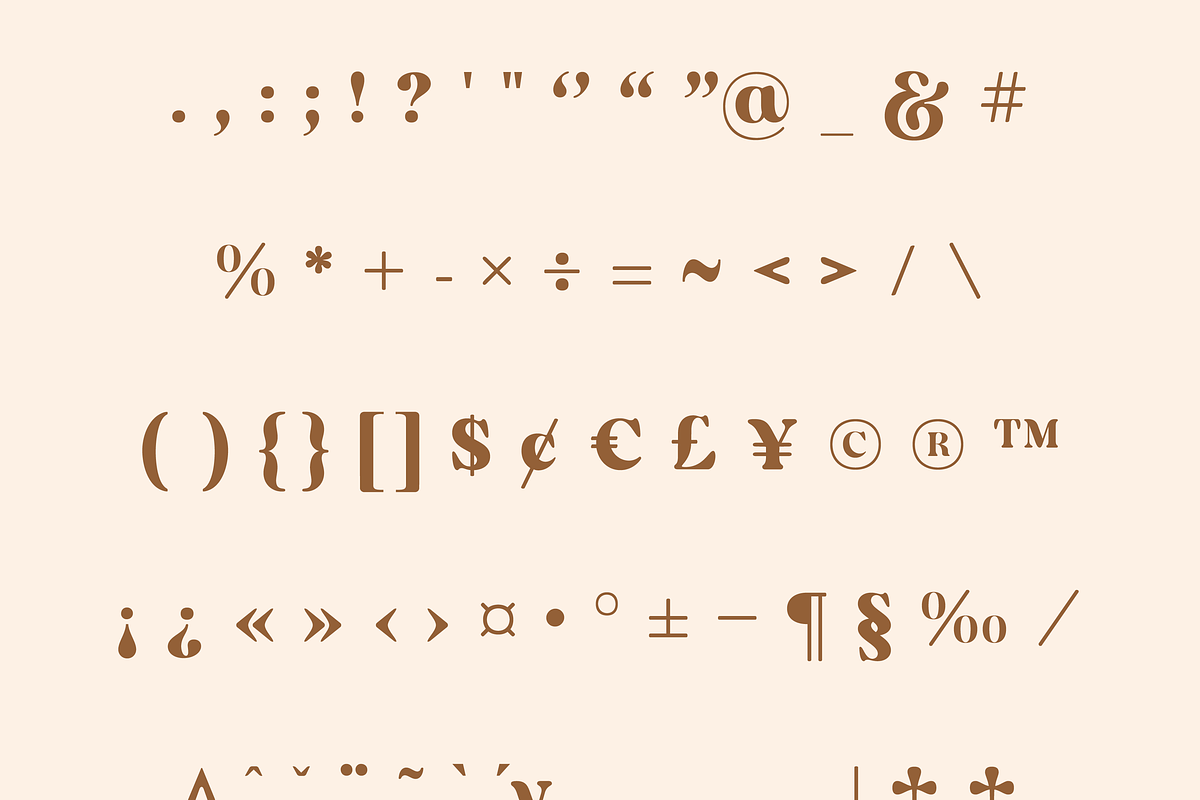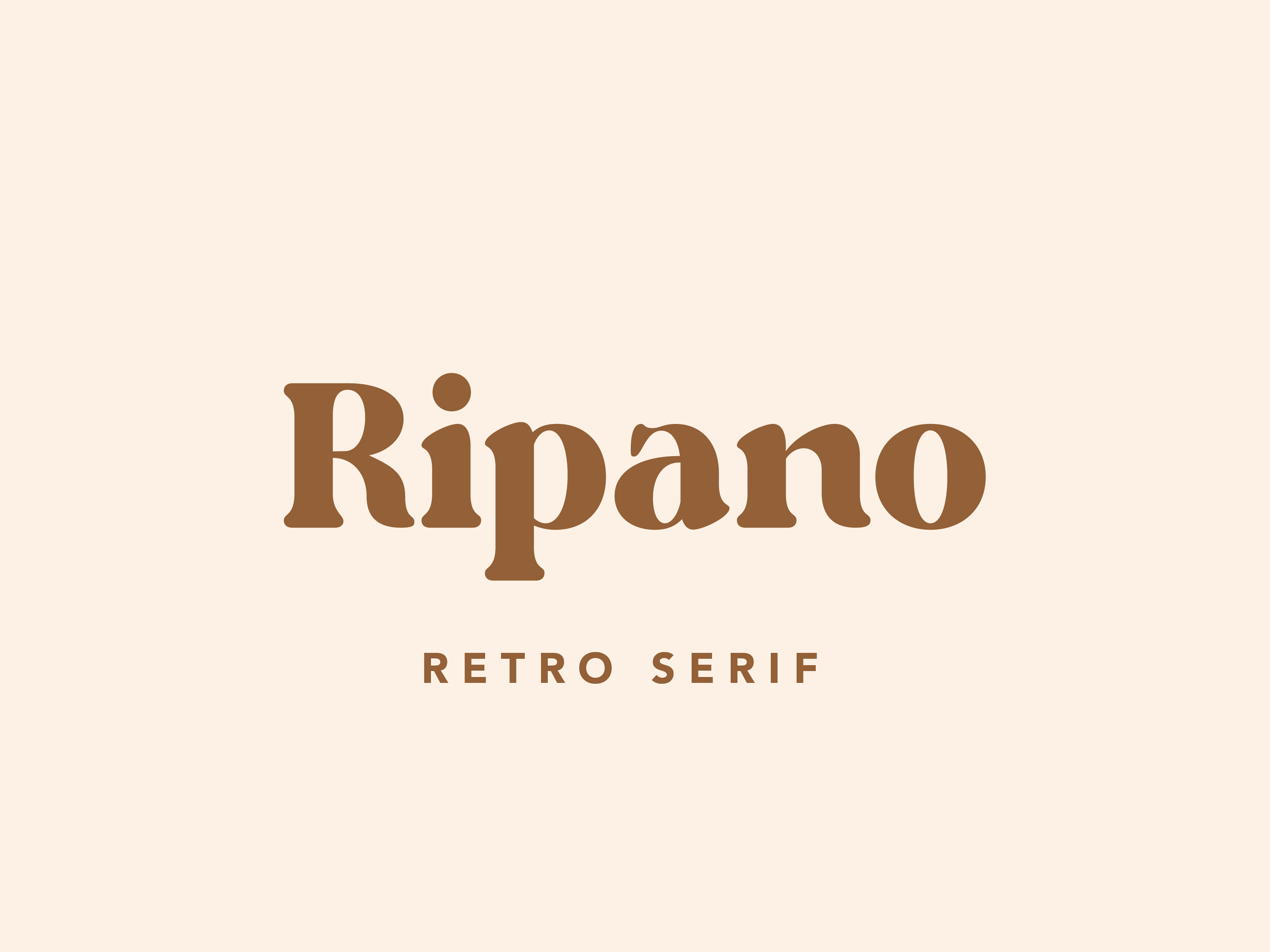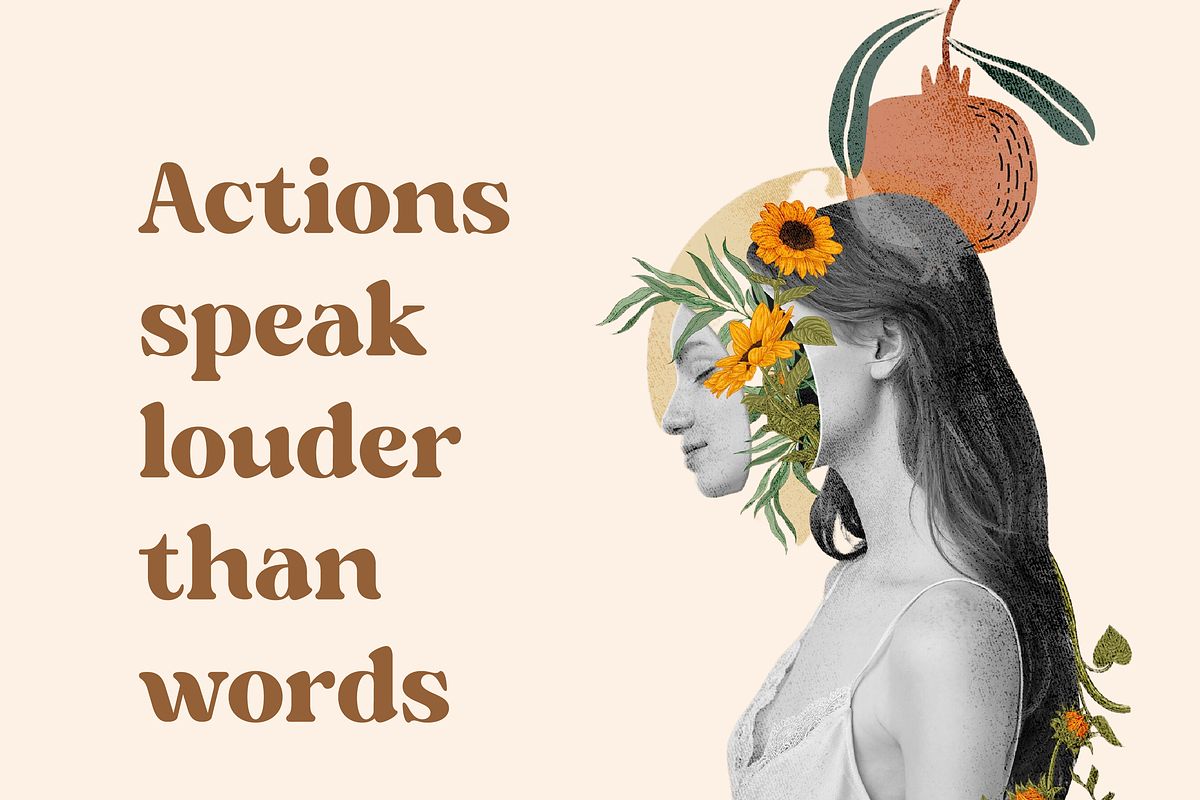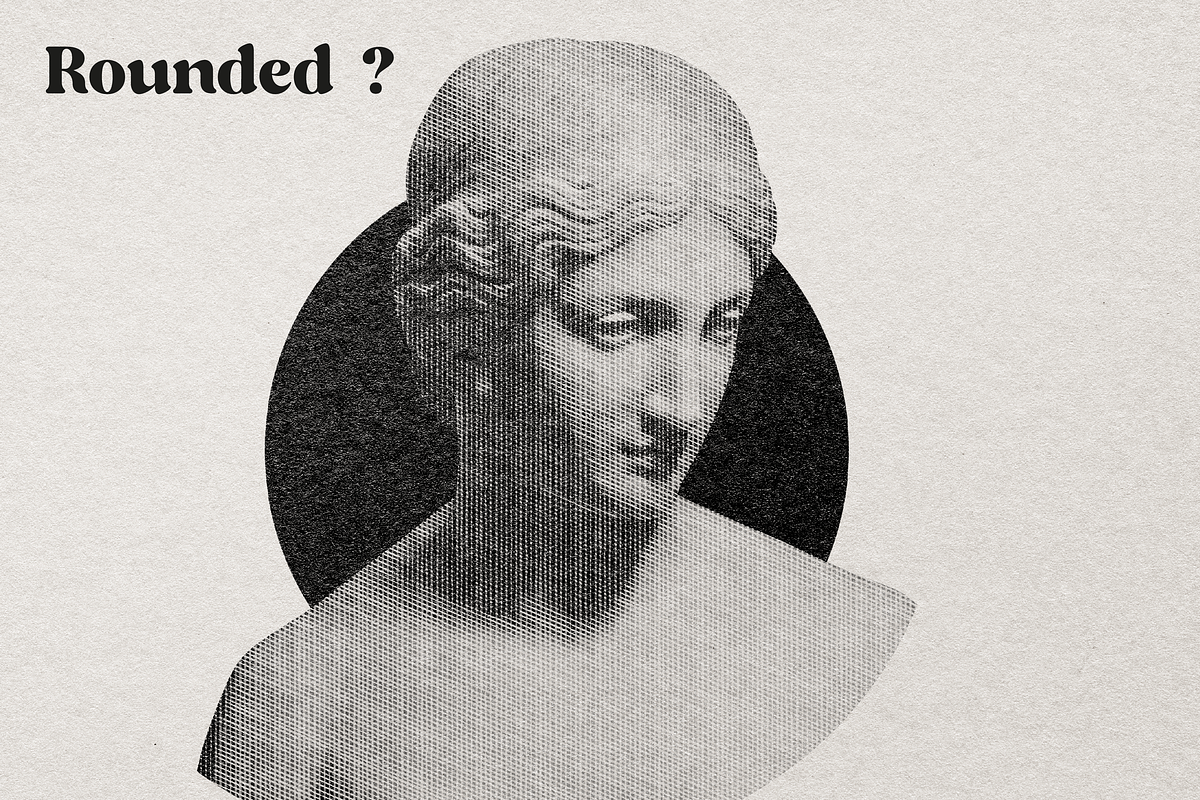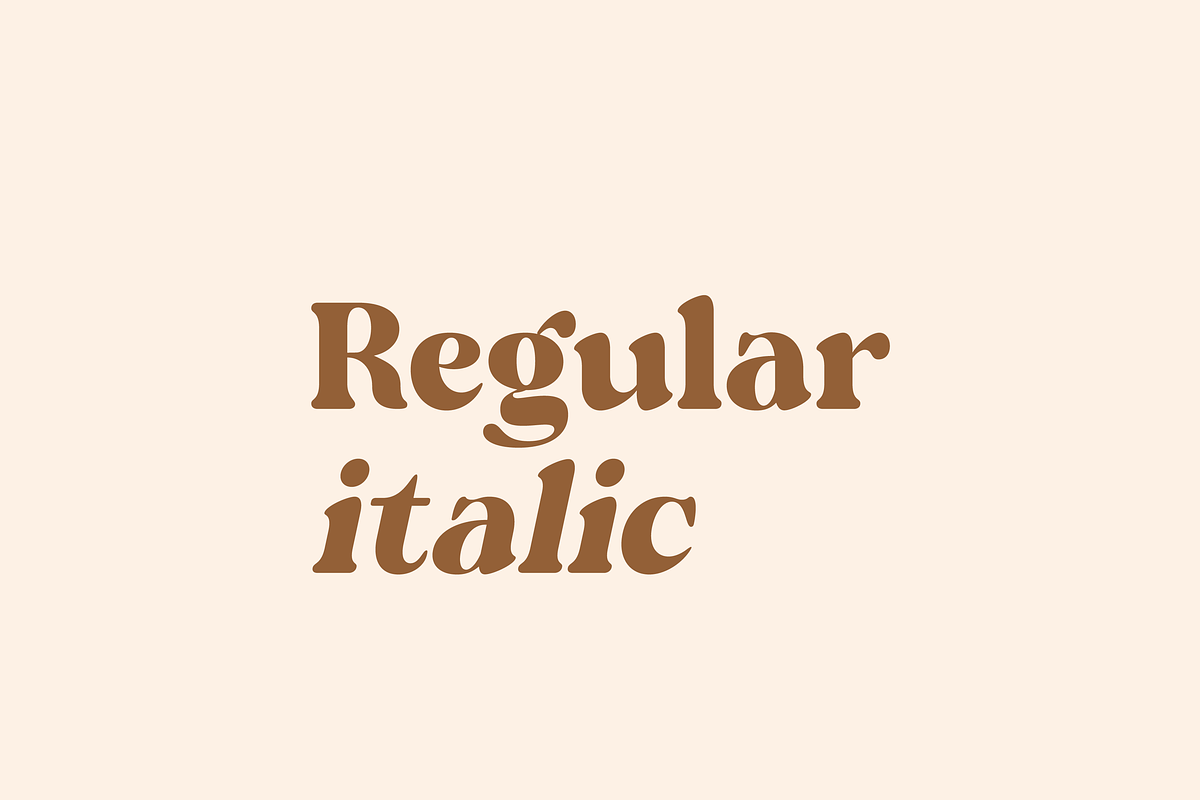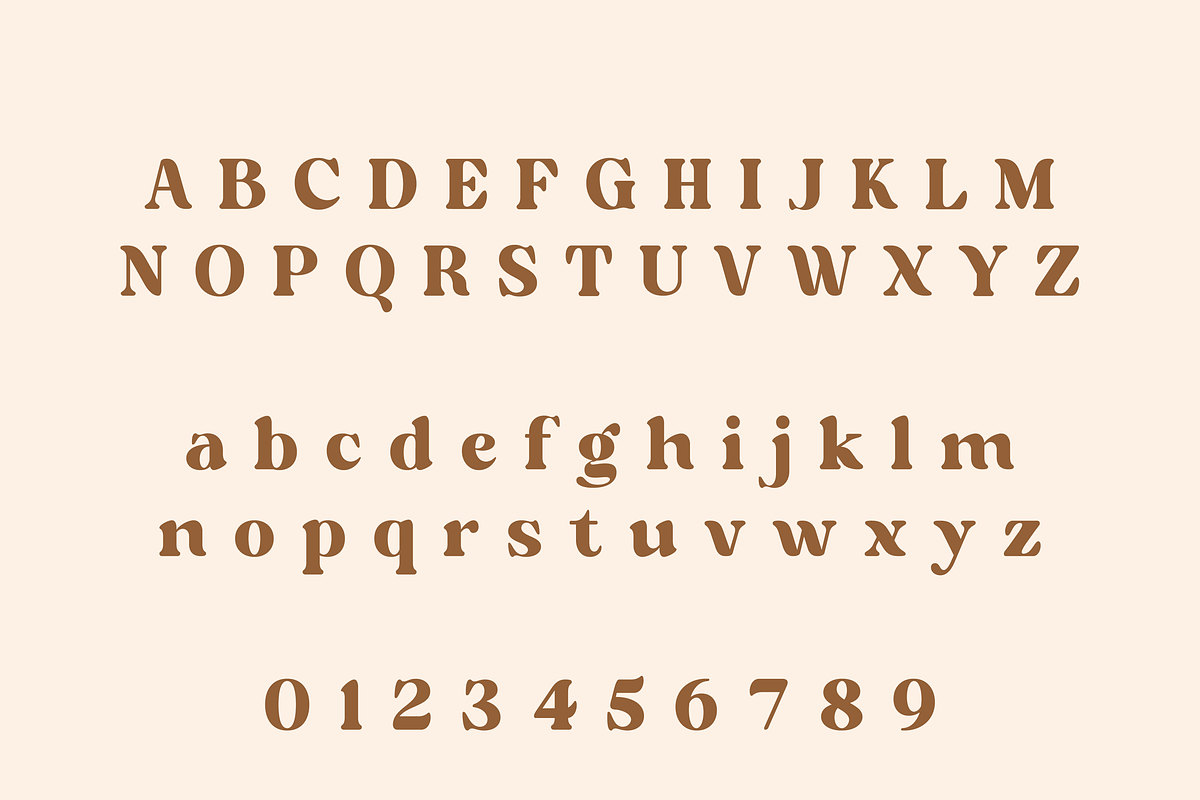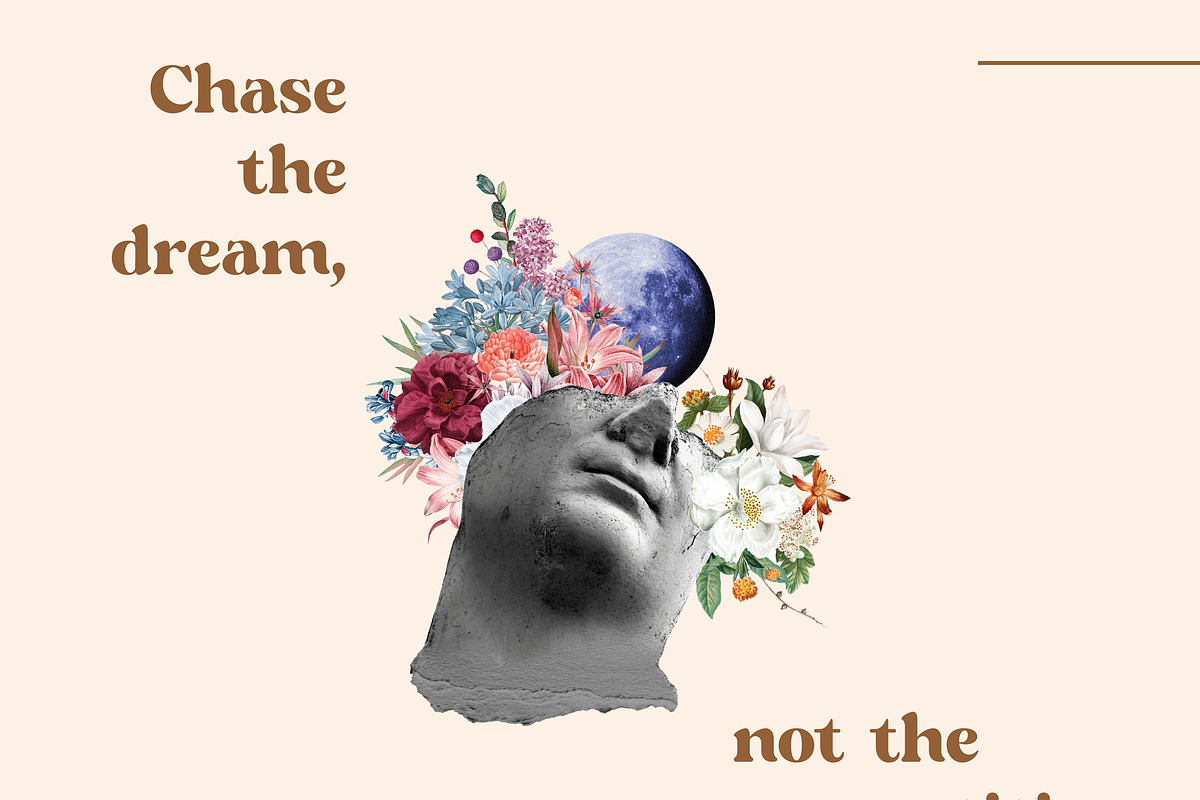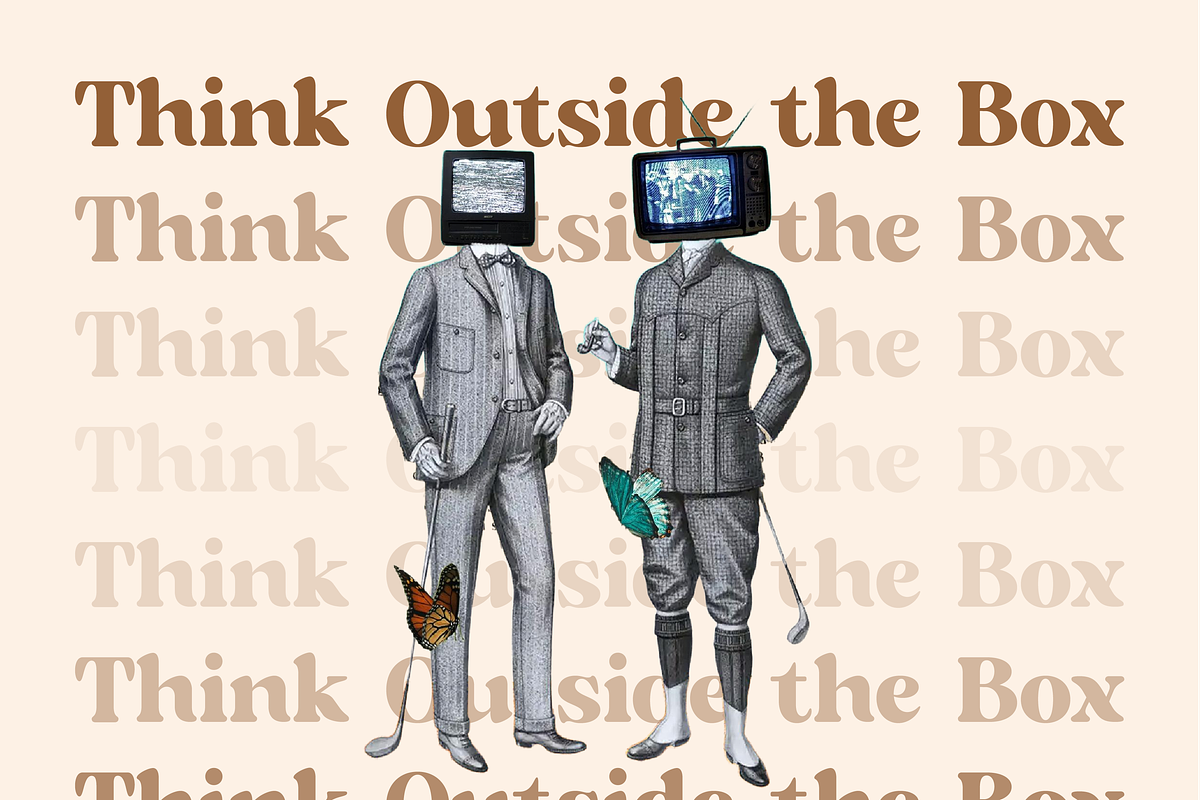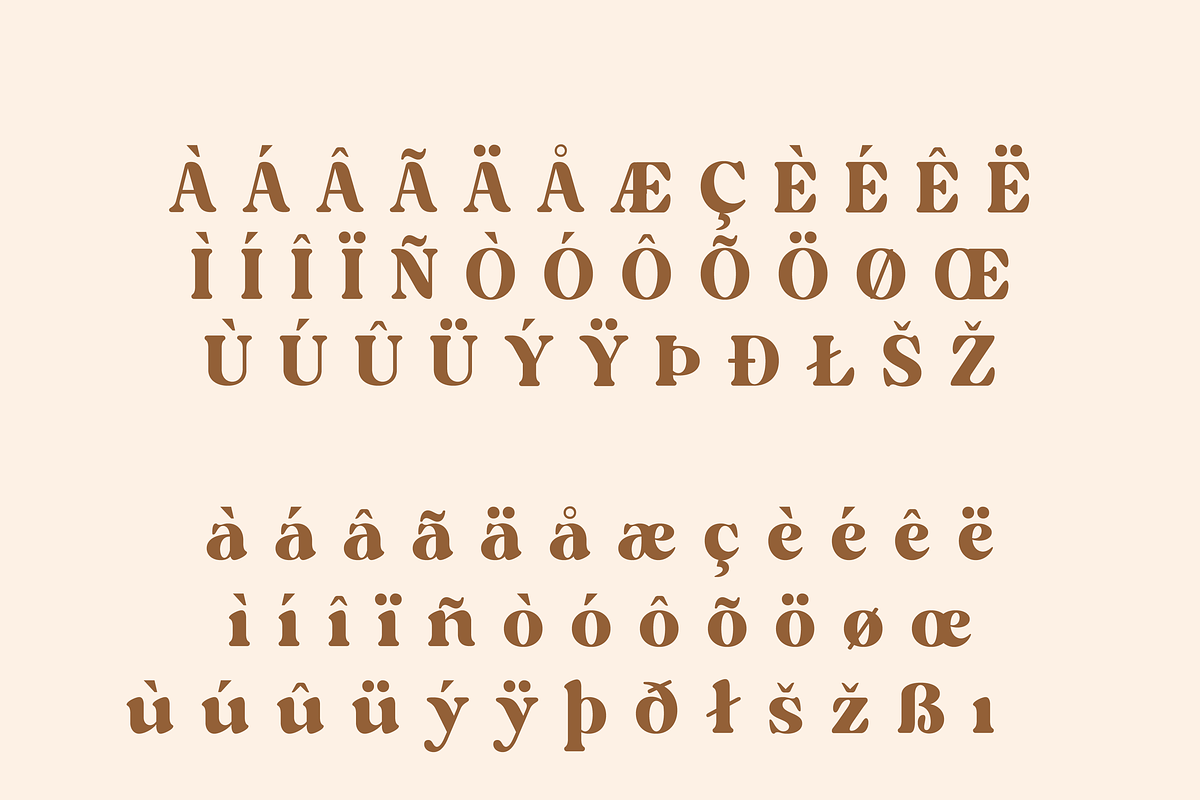
Ripano Retro Serif Font
Ripano – A Retro Display Serif with a Bold Twist
Ripano is a captivating serif typeface that blends nostalgic charm with a fresh, modern appeal. Inspired by vintage aesthetics yet designed for contemporary use, it features bold letterforms, playful alternates, and thick strokes that create a striking visual impact. Whether you’re crafting a logo, designing a headline, or working on branding materials, Ripano ensures your typography stands out with confidence and style.
With a balance of personality and versatility, Ripano adapts effortlessly to a variety of creative projects, from editorial layouts to packaging and beyond. Its distinct character makes it a go-to choice for designers looking to make a bold statement while maintaining a touch of elegance.